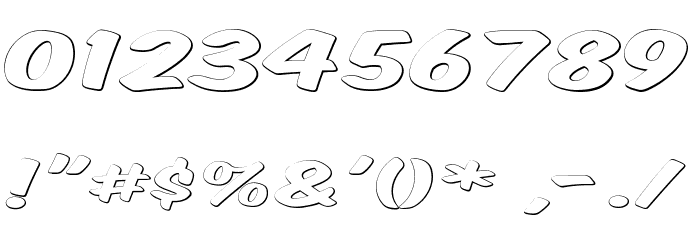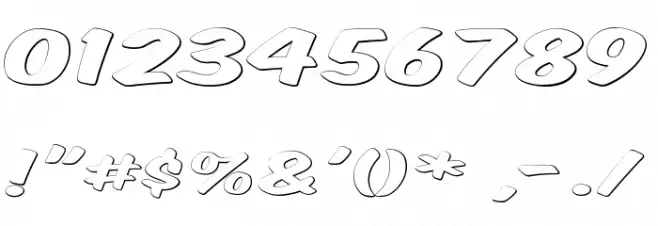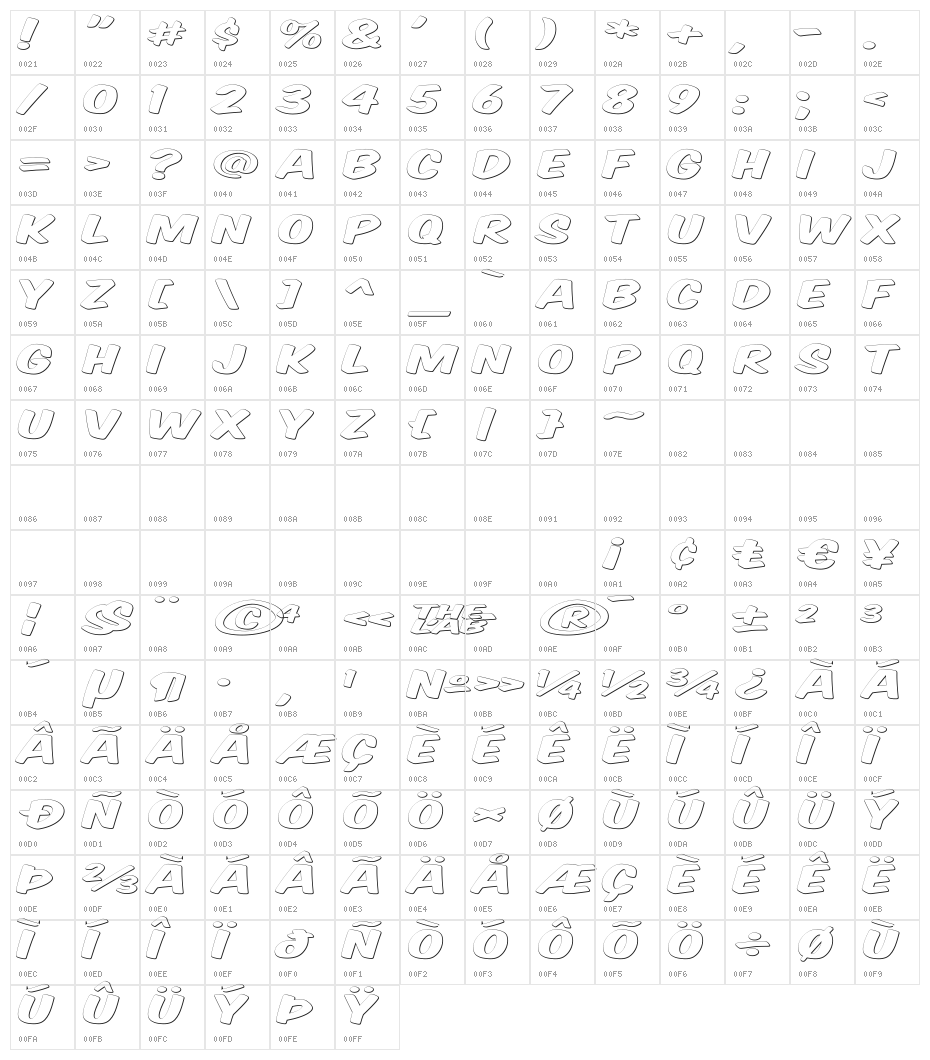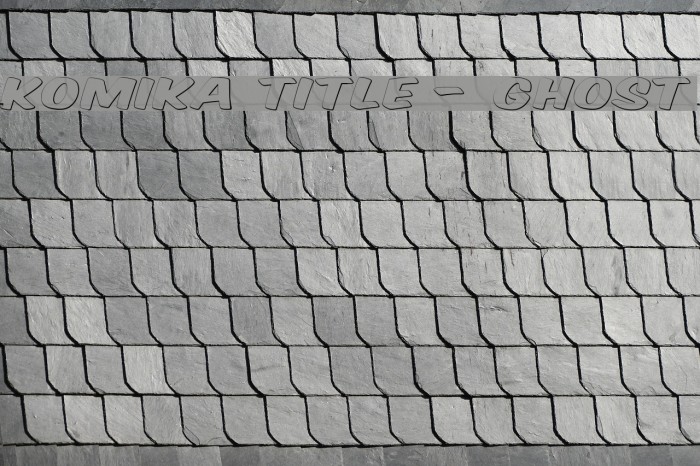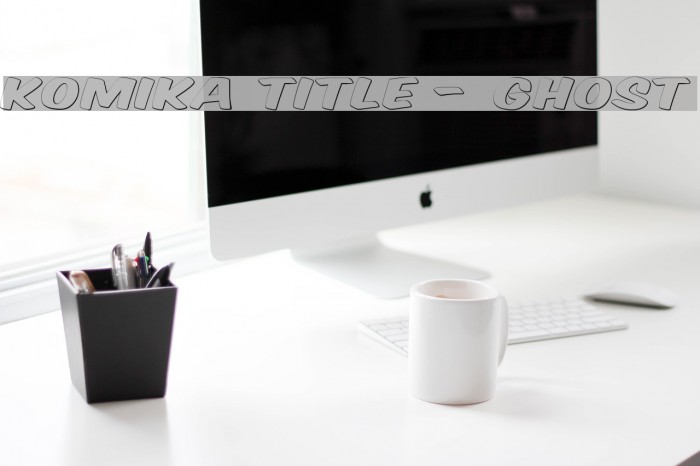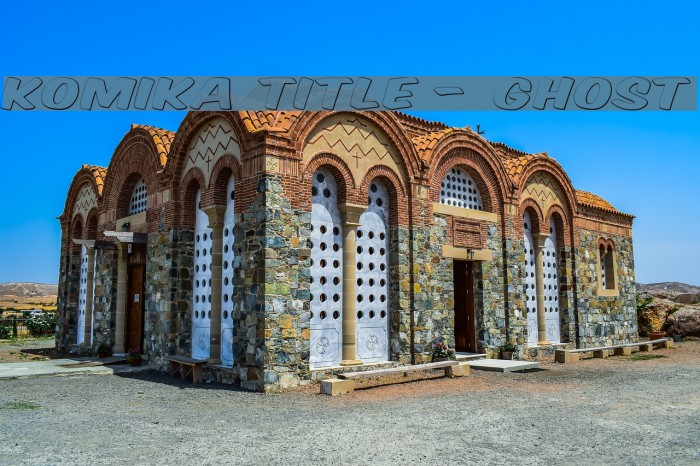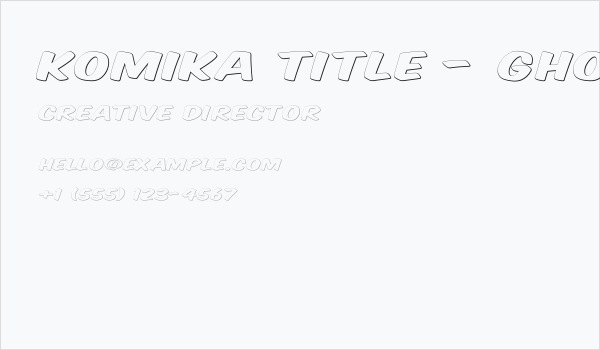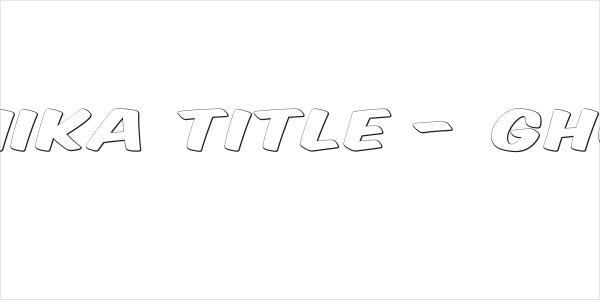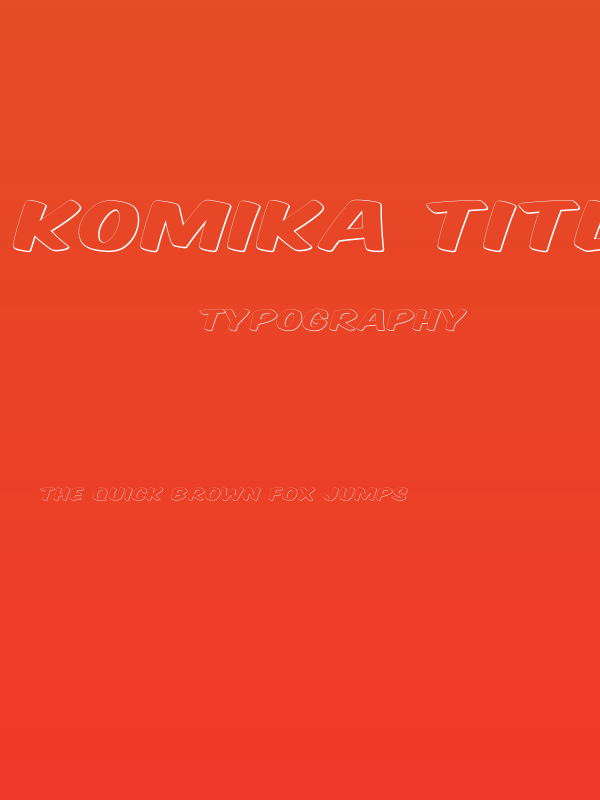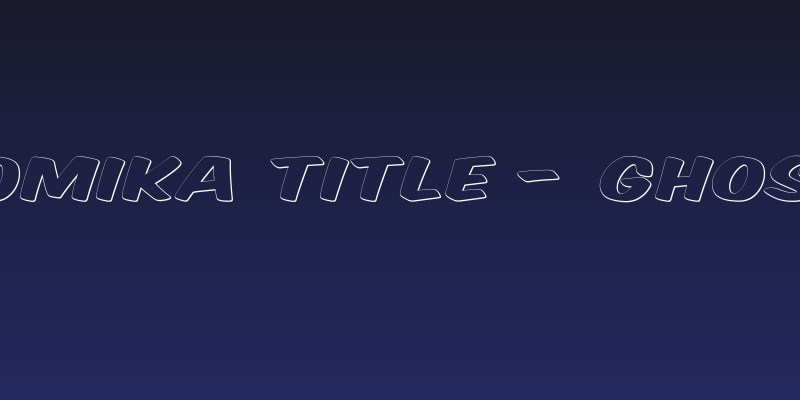
Komika Title - Ghost Font
Komika Title - Ghost Description
This playful and bold font features a comic-inspired style with thick, rounded edges and a slightly slanted orientation. The characters are outlined, giving them a ghostly, hollow appearance that adds a unique dimension to the text. The uppercase and lowercase letters maintain a consistent style, with a fun and approachable aesthetic. The numbers and special characters are designed to match the overall theme, making this font suitable for creative and informal projects. Its distinctive look is perfect for capturing attention and conveying a sense of fun and whimsy.
| Overall Style | Playful, Comic |
| Proposed Projects | Ideal for comic books, children's books, playful branding, posters, and party invitations. |